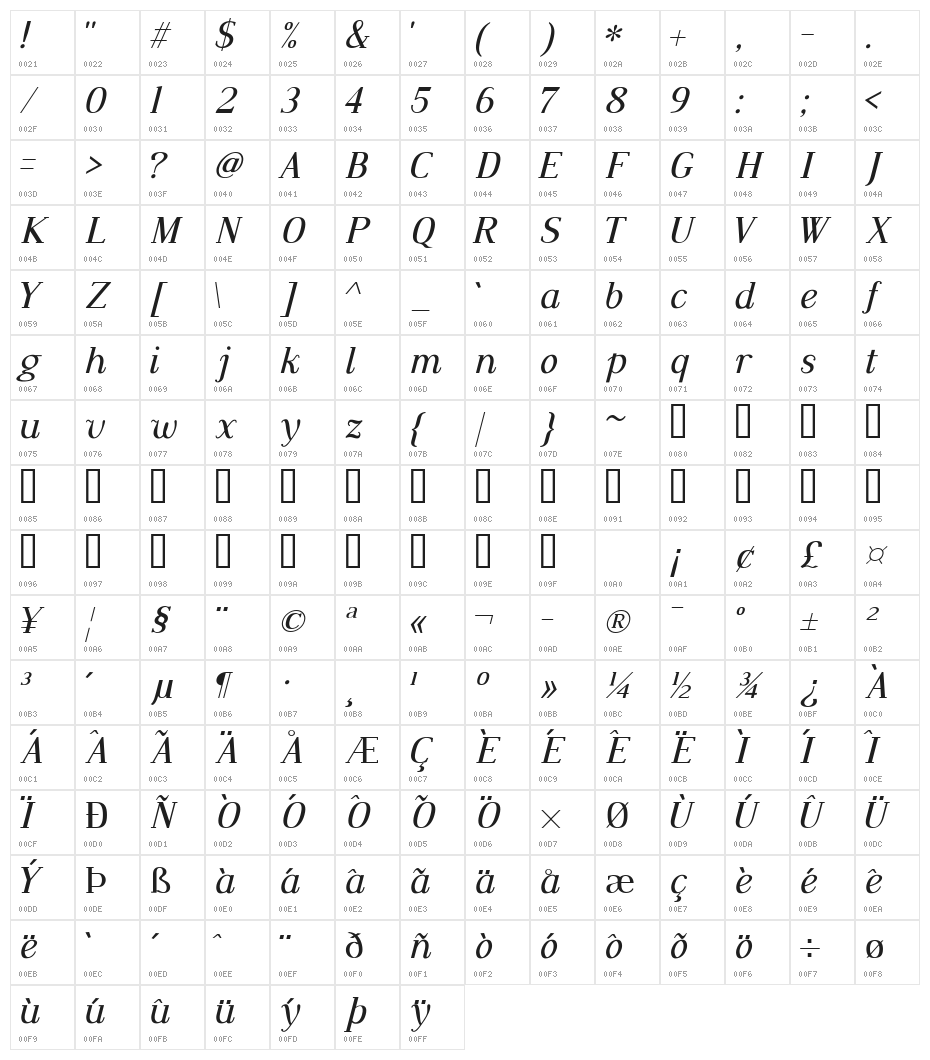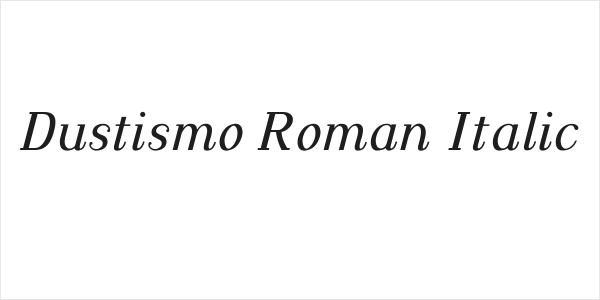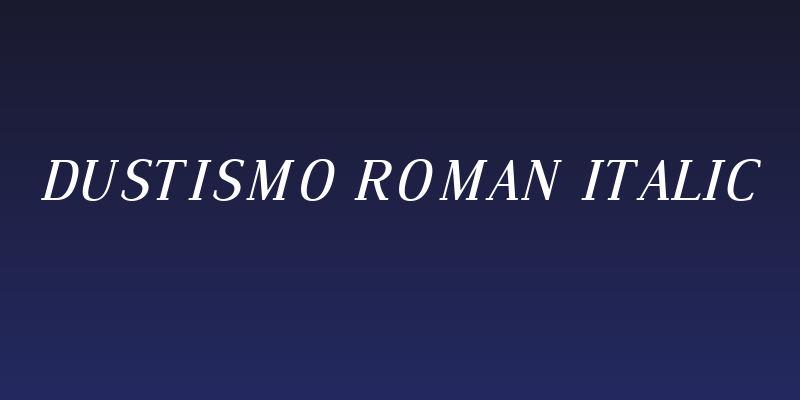
Dustismo Roman Italic Font
Dustismo Roman Italic Description
This font features a classic italic style with elegant, flowing curves and a refined appearance. The characters are slightly slanted to the right, giving a sense of motion and sophistication. The serifs are pronounced yet delicate, adding a touch of traditional charm. The uppercase letters are tall and stately, while the lowercase letters maintain a consistent height, ensuring readability. Numbers are clear and well-proportioned, and the special characters blend seamlessly with the overall design. This font is versatile, suitable for both formal and creative projects.